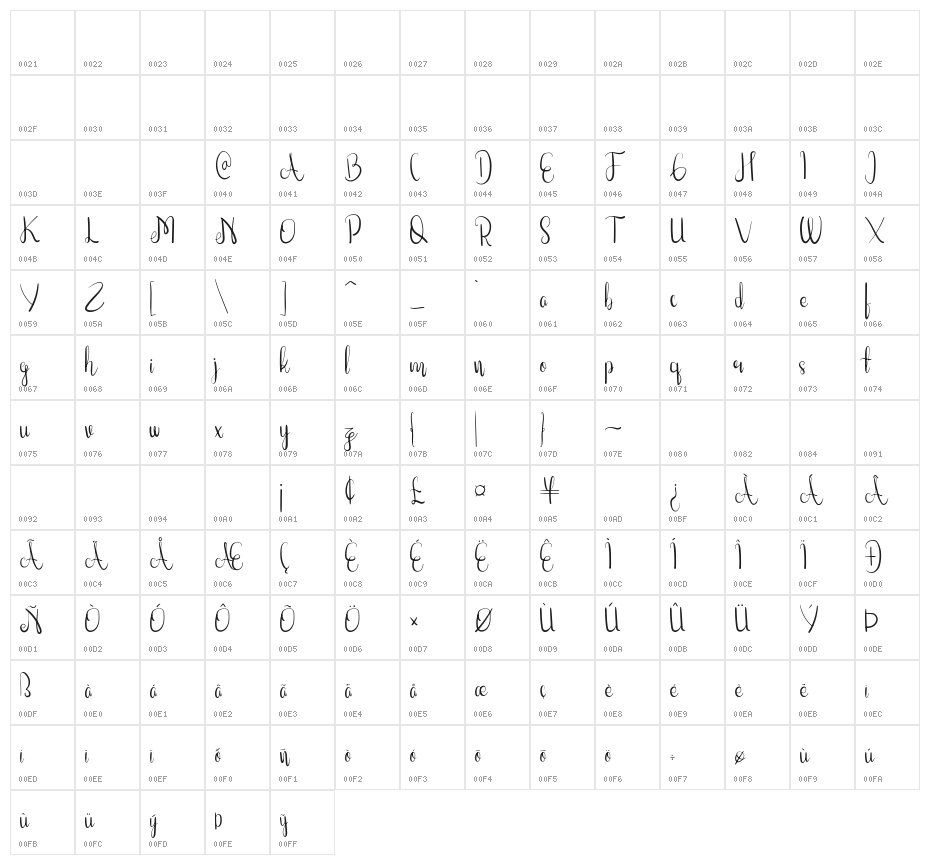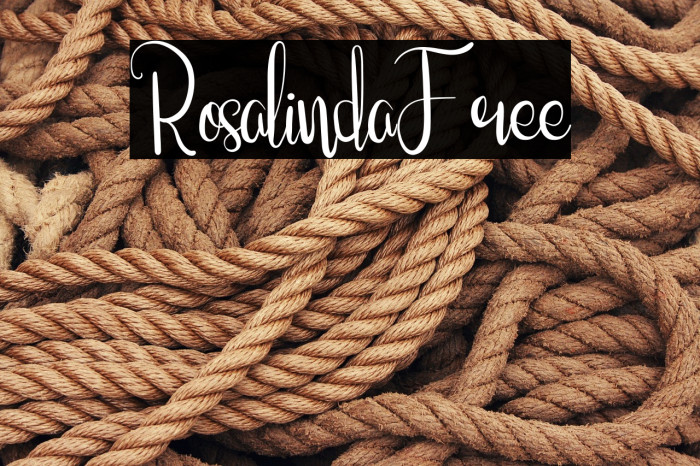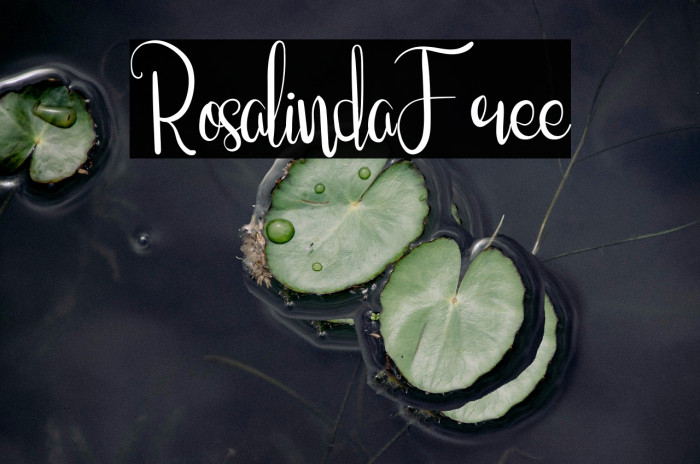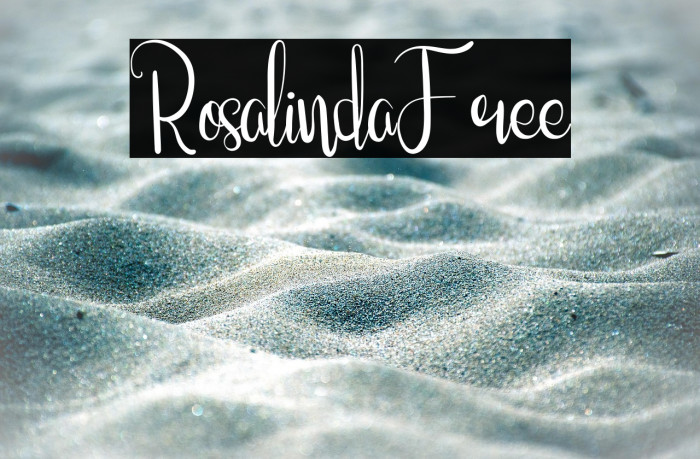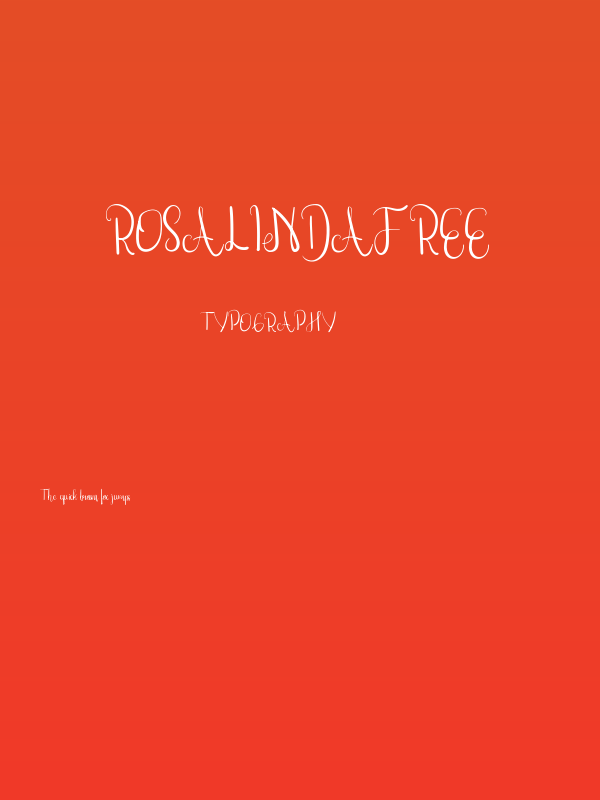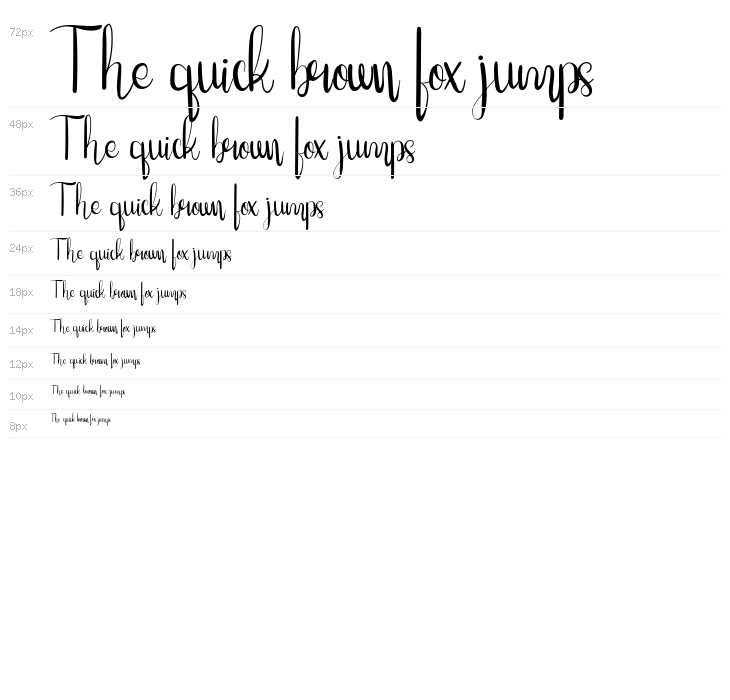
RosalindaFree Font
RosalindaFree Description
This font features an elegant and flowing script style, characterized by its smooth, cursive strokes and artistic flair. The uppercase letters are tall and graceful, with loops and swirls that add a touch of sophistication. The lowercase letters maintain a consistent flow, complementing the uppercase with their own unique charm. The font has a playful yet refined appearance, making it suitable for creative and formal applications alike. The characters are well-spaced, ensuring readability while maintaining the decorative essence. This font's artistic nature makes it ideal for projects that require a personal touch.